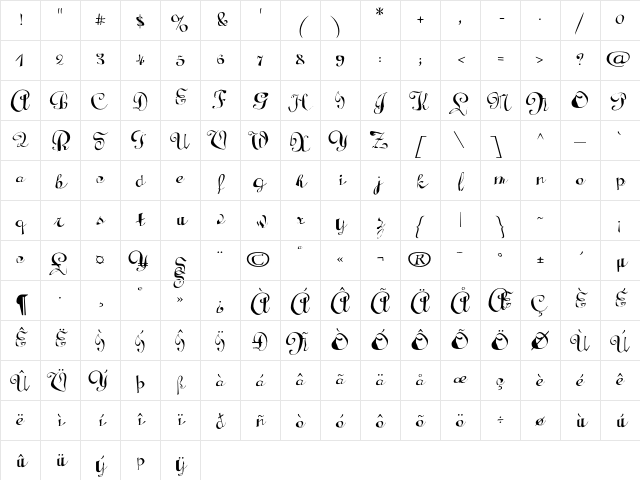
Complete Raydiant Regular glyph index. Displaying only characters natively supported by Raydiant Regular font.
Raydiant is a composed and adaptable typeface that performs quietly and consistently across a wide range of design contexts.